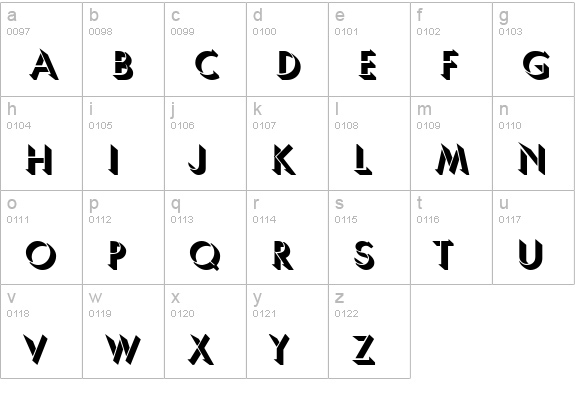
Umber Bold is a strong, high-contrast variant in the Umber typeface family \xE2\x80\x94 well suited to headlines, attention-grabbing titles, and strong calls-to-action.
Umber Bold font is a stunning and versatile typeface that exudes confidence and sophistication. With its bold and powerful letterforms, this font is perfect for creating eye-catching headlines, captivating logos, and impactful designs. The strong and commanding presence of Umber Bold font makes it ideal for projects that require a distinct and memorable visual statement. Whether you're designing a poster, a website, or a branding project, this font will effortlessly grab attention and leave a lasting impression. What sets Umber Bold font apart is not just its remarkable aesthetics, but also its accessibility. This font is freely available to download at FontsMarket.com, allowing designers and creatives from all walks of life to take advantage of its captivating charm. With just a few clicks, you can add this dynamic font to your collection and start incorporating it into your projects. So why wait? Discover the power and versatility of Umber Bold font today and elevate your designs to new heights. Download it for free at FontsMarket.com and let your creativity soar.